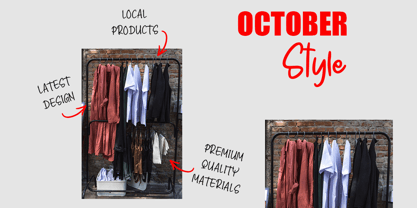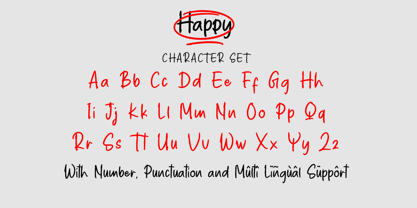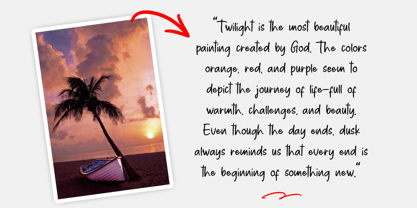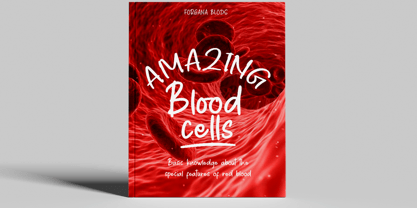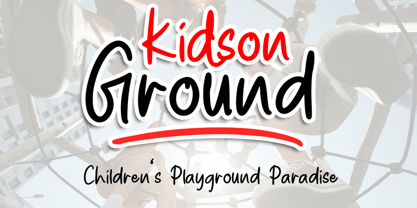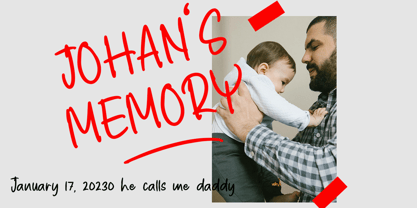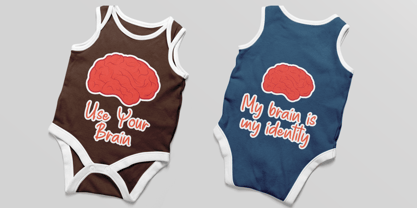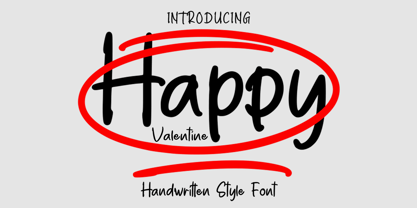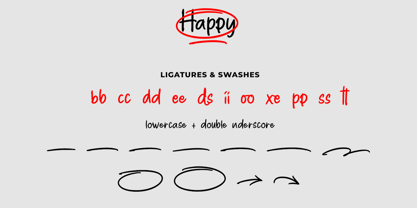
Happy Valentine
Happy Valentine is an elegant script with a creative mood and perfect form, inspired by today's beautiful calligraphy. thick, balanced and varied, born for luxury and beauty.
In my example I show how this script can be used. It's great for logotypes, branding, wedding invitations, romantic cards, alcohol labels, packaging, name spelling and more.
Happy Valentine comes with beautiful uppercase and lowercase letters, numbers, and punctuation. In addition to the main character set, there are many alternative characters, early and late sweeps.